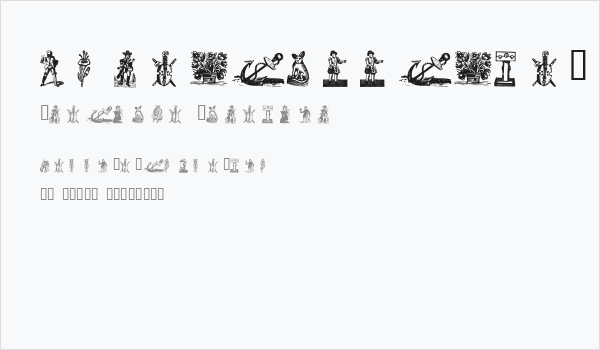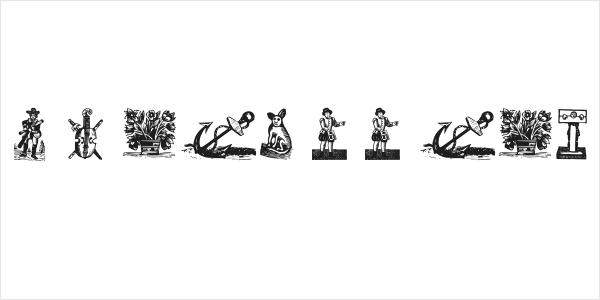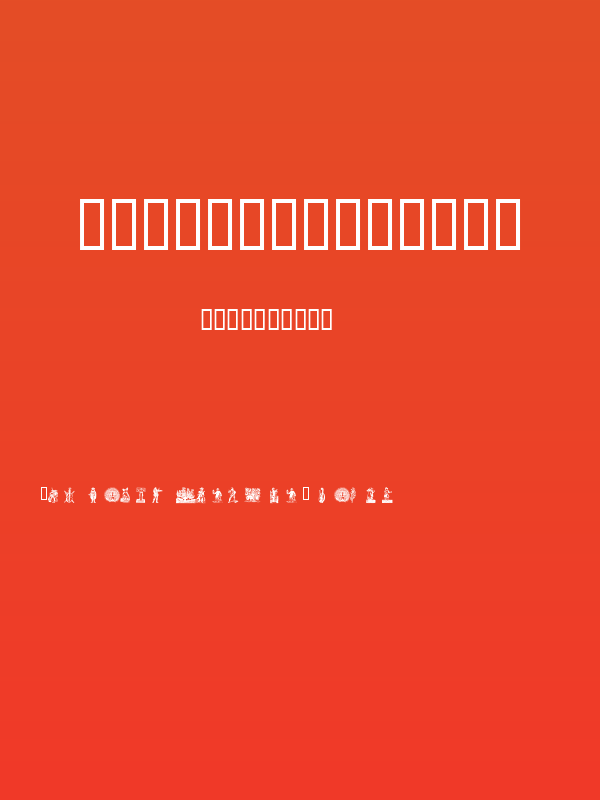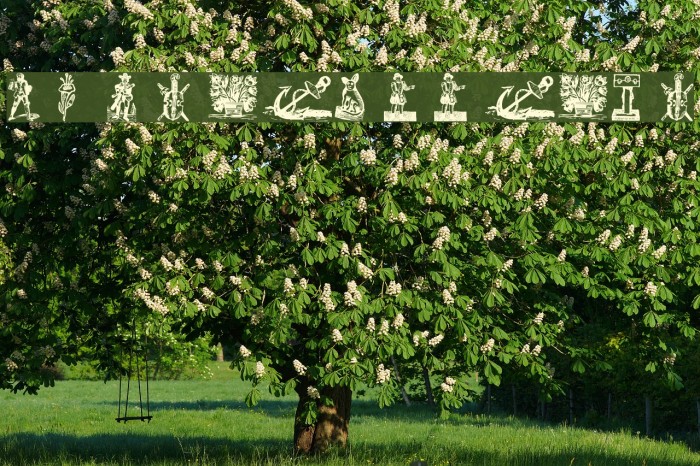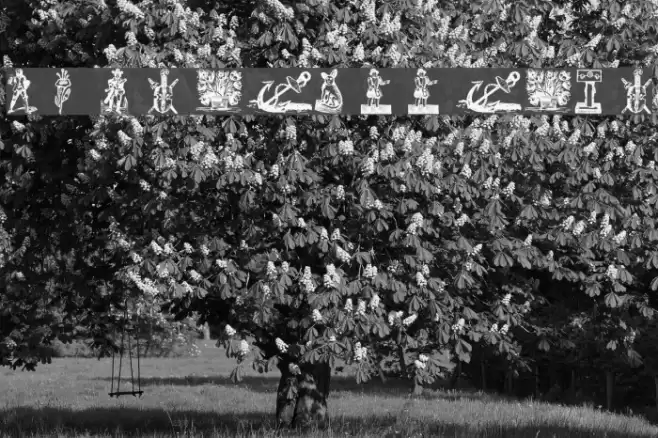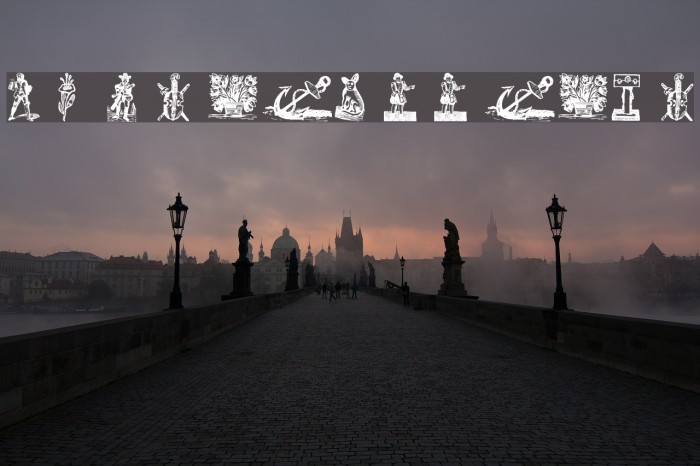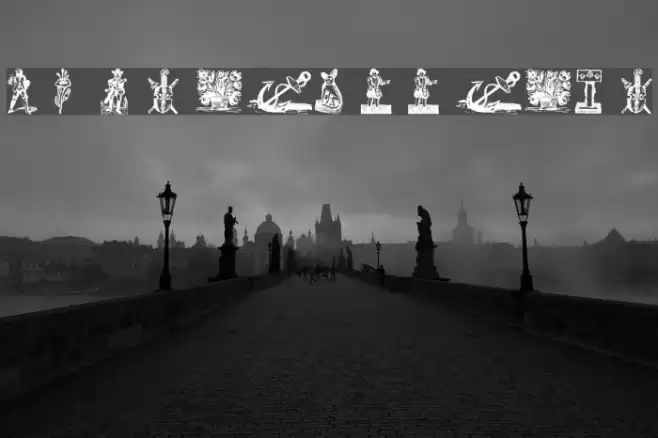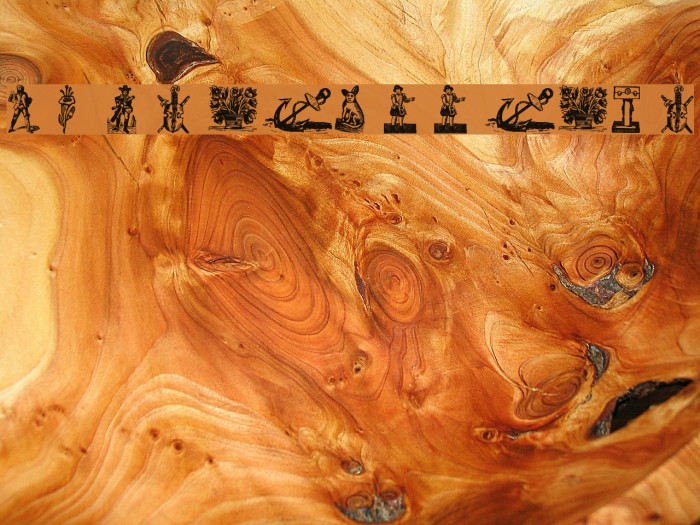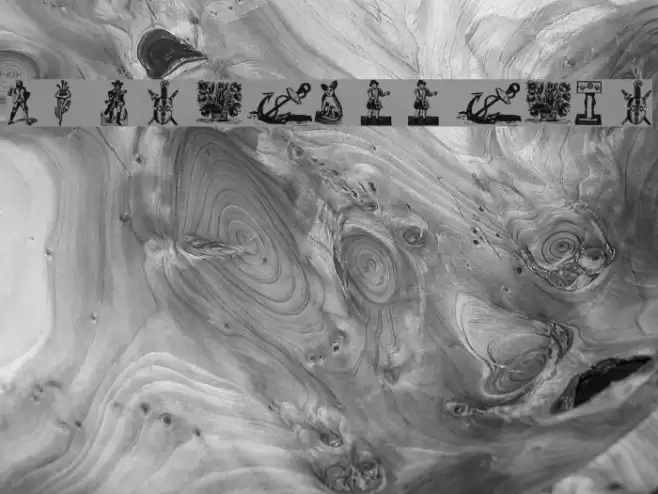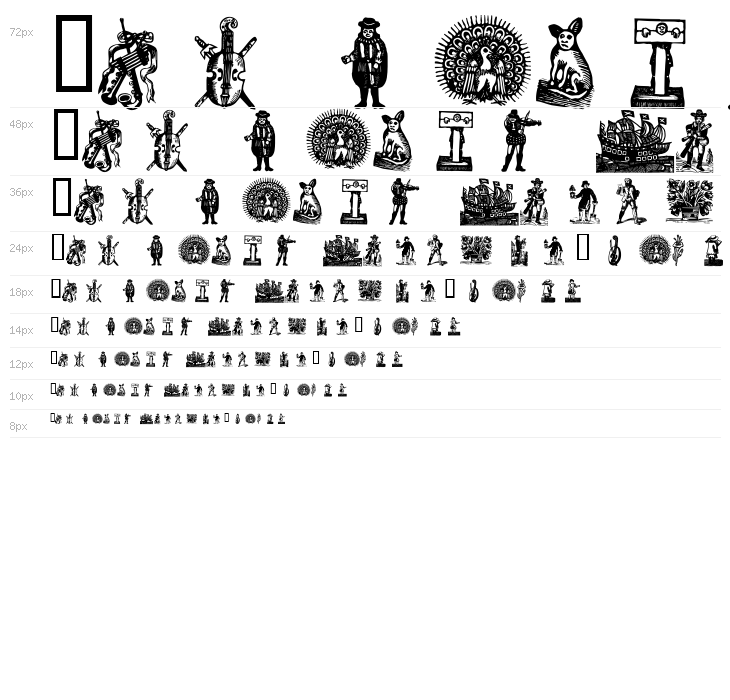
wmrenaissance1 Font
wmrenaissance1 Description
A decorative dingbat font featuring detailed Renaissance-style illustrations, including people in period clothing, musical instruments, floral motifs, and ornate objects. The glyphs are intricate and highly stylized, evoking historical and artistic themes.
| Overall Style | Decorative, Vintage, Historical |
| Use Case | Decorative elements, Illustrations, Themed graphics |
| Proposed Projects | Historical posters, event invitations, book covers, themed decor, educational materials. |